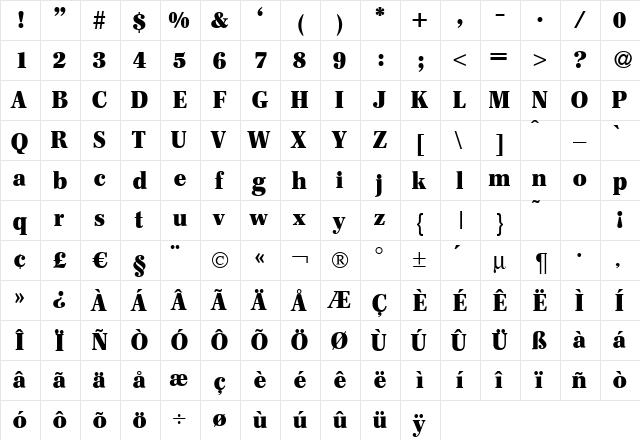
F820-Roman-Heavy Regular
Design Context for F820-Roman-Heavy Typeface
F820-Roman-Heavy is a composed and adaptable typeface that performs quietly and consistently across a wide range of design contexts.